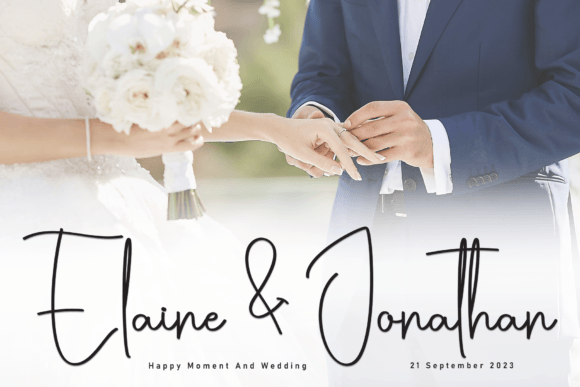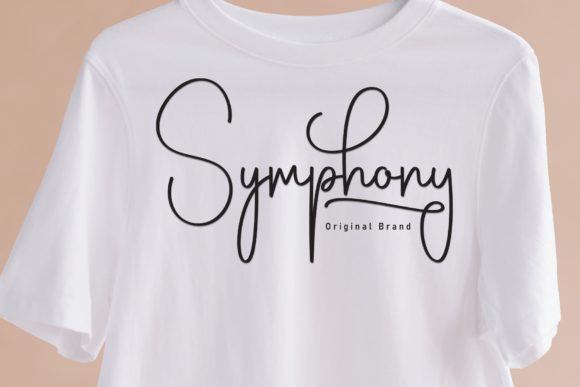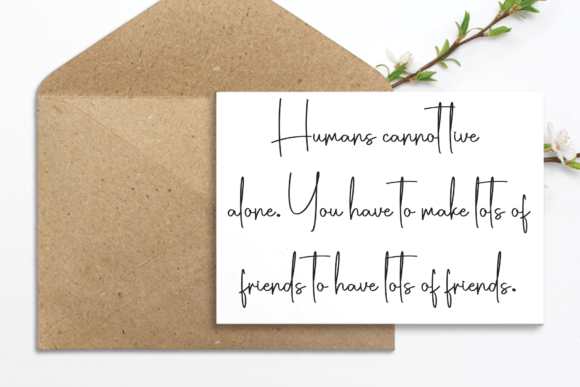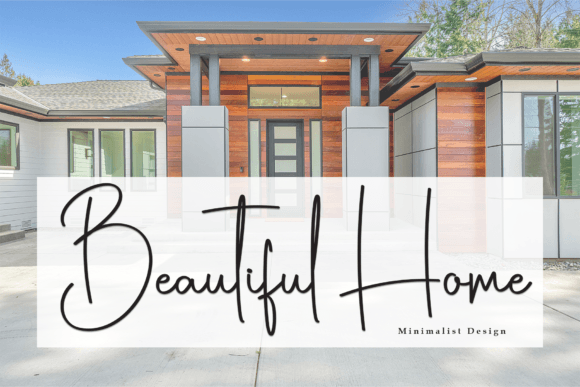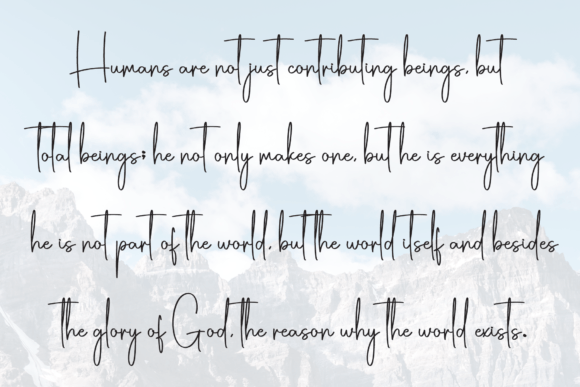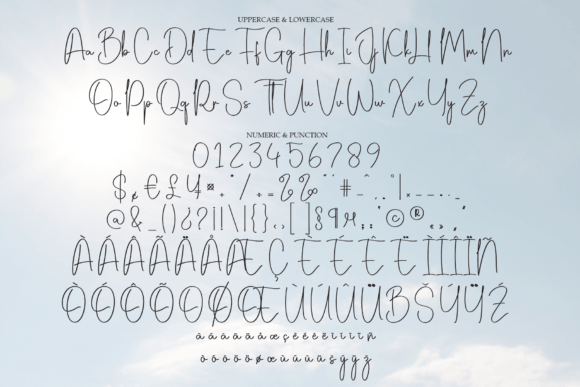
Introduction to Shinebright Font
Shinebright is a modern handwritten script.
This font looks natural, stylish, and perfect for any extraordinary project that requires a handwritten feel Its versatile style looks lovely on wedding invitations, thank you cards, quotes, greeting cards, logos, business cards, and every other design that needs a customized touch.